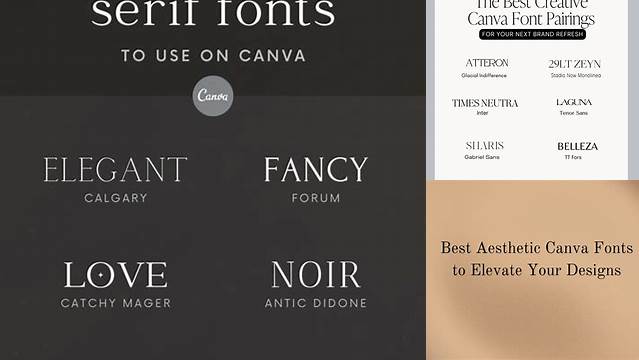
Modern Serif Fonts In Canva: Your Design Guide
Hey design enthusiasts! If you're on the hunt for the best modern serif fonts in Canva to give your projects that touch of elegance and sophistication, you've landed in the right place. Serif fonts, with their little decorative strokes (serifs) at the end of each letter, bring a classic and timeless feel. When used in modern design, they create a beautiful contrast between the old and new. Let's dive in and uncover some amazing serif fonts within Canva that will help your designs stand out. I'll guide you on how to effectively use these fonts, and even throw in some design tips and tricks.
Why Choose Serif Fonts for Modern Design?
So, why the buzz around serif fonts in the modern design world, you ask? Well, guys, it's all about balance. Serif fonts, especially when modernized, offer a sense of tradition and authority, while also bringing a sense of sophistication. The serifs can make your text more readable, particularly in printed materials, while also adding a unique design flair. In the dynamic design world, choosing the right font is crucial. Serif fonts, when combined with a contemporary design approach, can create a great visual experience. Modern serifs often ditch some of the more ornate elements of classic serif fonts, making them feel clean and streamlined, which works perfectly in digital interfaces. By incorporating these modern serif fonts in Canva, you can instantly elevate your designs, making them look more professional and visually engaging. Using the right font gives your project the right tone, making it stand out from the crowd. Whether you're creating a brand logo, website, or social media graphic, serif fonts give a versatile foundation for your projects. Consider these fonts as essential tools in your design toolbox, ready to add a touch of class and modernity to your creations. When you look for fonts, consider their visual style, like classic fonts, modern fonts, and their readability. This will increase your projects' success.
The Allure of Modern Serifs
Modern serifs have a unique blend of classic and contemporary elements. They take the established elegance of traditional serif fonts and give them a sleek, minimalist makeover. This results in a font that's both familiar and fresh. The charm of modern serifs lies in their versatility. They can easily adapt to various design styles, from clean and minimalistic to bold and expressive. This adaptability makes them a favorite among designers looking to create a visually appealing brand identity or a user-friendly website. They are designed to be clean and readable, ensuring that your content is not only stylish but also accessible. The choice of a modern serif font can significantly influence the perception of your brand, conveying a sense of professionalism, reliability, and sophistication. They can turn simple text into an eye-catching design, allowing your message to resonate with your audience.
Top Canva Modern Serif Fonts to Try
Alright, let’s get into the good stuff! Here are some of the top modern serif fonts you should definitely check out in Canva: I've handpicked a few of my personal faves and some widely-used fonts, to help you start. Remember, experimenting with different fonts is key to finding the right fit for your design.
1. Playfair Display
Playfair Display is one of the most popular choices for a reason. It's a high-contrast, elegant serif that adds a touch of sophistication to any design. The font is inspired by the designs of the late eighteenth and early nineteenth centuries. It's perfect for headlines, titles, and any text where you want to make a statement. The bold weight can create striking titles, while the regular weight is great for body text in smaller quantities. Playfair Display is incredibly versatile, and it works well in both print and digital formats. Use it to create elegant logos, stylish website headers, or captivating social media posts. It’s a great option to add a modern yet classy vibe to your designs.
2. Montserrat
Now, this is a bit of a cheat, as Montserrat is technically a sans-serif. However, it is so widely used and loved in design that it's worth a mention as it pairs incredibly well with serif fonts. Combining Montserrat with a classic serif font can create a balanced and harmonious design. It offers a clean and modern look that complements the elegance of serif fonts. It is an excellent choice for body text, which improves overall readability. Montserrat is great for website content, brochures, and even posters. It provides the modern touch needed to balance the elegance of a serif font, ensuring that the design is both beautiful and easy to read.
3. Libre Baskerville
Libre Baskerville is a web-optimized serif font. It is designed to be highly readable, which makes it great for long-form content, websites, and print materials. It’s a classic serif with a modern touch, making it versatile for different design projects. The font is derived from the Baskerville typeface, known for its elegance and readability. Libre Baskerville is a great choice for body text, ensuring that your content is clear and enjoyable to read. Whether you're creating a blog post, a brochure, or a website, this font will help make your content accessible and visually appealing.
4. Raleway
Raleway is a sans-serif font, similar to Montserrat, it works great to be paired with serif fonts. The font has a clean and modern appearance. It's perfect for creating a balanced and contemporary design. The combination of the sans-serif Raleway and a serif font can add visual interest to your designs, improving the overall readability. Use it for headlines, subheadings, and body text to add a professional touch to your projects. Remember, pairing fonts is about finding the right combination to ensure your design looks great and is easy to read.
How to Effectively Use Serif Fonts in Canva
Using modern serif fonts in Canva is all about balance and contrast. Here's how you can use them effectively in your designs:
1. Pairing Fonts
One of the most important aspects of using fonts is how you pair them. It’s generally a good idea to pair a serif font with a sans-serif font for a balanced look. This contrast adds visual interest and improves readability. A sans-serif for body text and a serif for headings often works well. Experiment with different combinations to find what best suits your project. Consider the overall tone you want to convey and choose font combinations that reflect that.
2. Typography Hierarchy
Establish a clear visual hierarchy by using different font sizes, weights, and styles. Make headlines larger and bolder than body text to guide the reader's eye. This will make your content easier to read and more engaging. Using different fonts to show the importance of the text allows you to guide the reader's attention to the most important parts of your project.
Conclusion: Embrace the Elegance of Serif Fonts in Canva
There you have it, guys! The best modern serif fonts in Canva, coupled with some handy design tips. Remember, the right font can truly transform your designs. By choosing and using these fonts effectively, you can add a touch of sophistication and elegance to any project. So go ahead, experiment with these fonts, and make your designs shine. Have fun creating, and don’t hesitate to explore different combinations until you find the perfect match for your project! Happy designing, and remember to keep exploring the endless possibilities of Canva! I hope this article has been helpful. If you have any questions, drop them in the comments. Cheers, and happy creating!